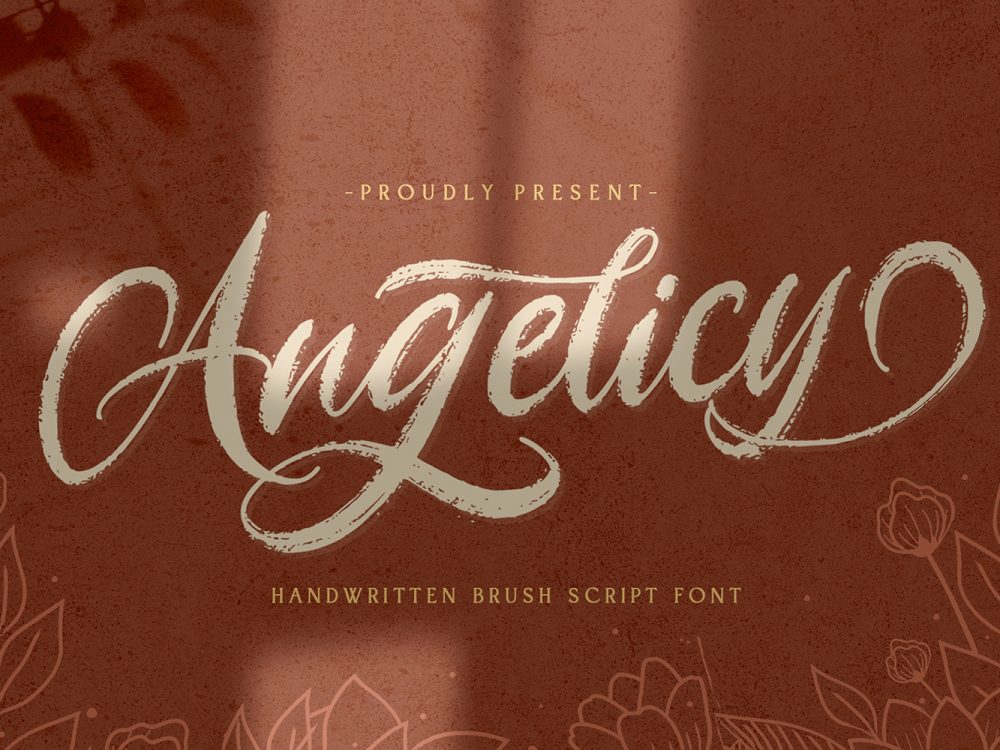
Angelicy Free Font
Angelicy Free Font is a scripted handwritten font that mimics writing with a brush and features a calligraphic style. This font is very suitable for creating various design projects and will help you to increase your professionalism. use this font to create memorable posters, wedding invitations, cards, branding, flyers, and more. If you like it don’t forget to check out the full version.